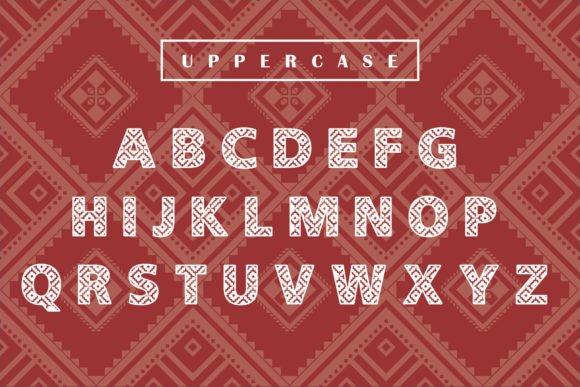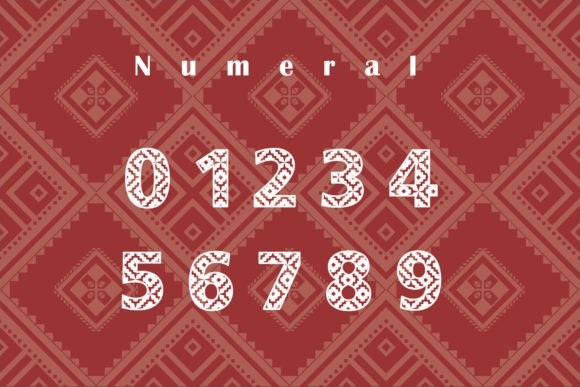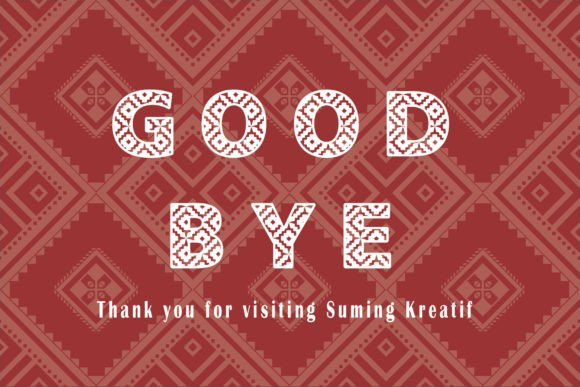
Introducing Fabric Font: Elevate Your Designs with a Unique and Authentic Touch
In the world of typography, a font can make or break a design project. When it comes to creating visually stunning headlines, titles, and short bursts of text, the right font is essential. This is where Fabric Font comes in – an attractive display font designed to add a touch of authenticity to your designs. With its bold lines and unique character shapes, Fabric Font is perfect for designers and crafters looking to make their message stand out.
What is Fabric Font?
Fabric Font is a display font that is specifically designed for use in headlines, titles, and other short bursts of text. Its bold lines and unique character shapes give it a distinctive look that is sure to grab attention. Whether you’re working on an advertising campaign, branding project, or print design, Fabric Font is the perfect choice.
Key Features of Fabric Font
- Bold Lines: Fabric Font features bold lines that give it a sturdy and confident look. Perfect for making a statement, this font is sure to grab attention.
- Unique Character Shapes: The unique character shapes in Fabric Font add an authentic touch to any design project. From the elegant curves to the sharp edges, each character is carefully crafted to create a visually stunning effect.
- Versatility: Fabric Font is versatile and can be used in a variety of design projects, from advertising and branding to print design and more.
Fabric Font is perfect for designers and crafters who want to add a unique touch to their designs. Whether you’re working on a logo, brochure, or business card, this font is sure to make your message stand out. With its bold lines and unique character shapes, Fabric Font is ideal for:
- Advertising: Use Fabric Font to create eye-catching headlines and titles that grab attention.
- Branding: Add a touch of authenticity to your brand with Fabric Font. Perfect for logos, packaging, and more.
- Print Design: Use Fabric Font to create visually stunning brochures, business cards, and other print materials.
Tips for Using Fabric Font
To get the most out of Fabric Font, here are a few tips to keep in mind:
- Use it sparingly: Fabric Font is a display font and is best used sparingly. Use it for headlines and titles, and pair it with a simpler font for body text.
- Experiment with colors: Fabric Font looks great in a variety of colors. Experiment with different colors to find the one that works best for your design.
- Pair it with other fonts: Fabric Font pairs well with a variety of other fonts. Experiment with different pairings to find the one that works best for your design.
In conclusion, Fabric Font is a unique and attractive display font that is perfect for designers and crafters looking to add a touch of authenticity to their designs. With its bold lines and unique character shapes, Fabric Font is sure to make your message stand out. Whether you’re working on an advertising campaign, branding project, or print design, Fabric Font is the perfect choice. So why wait? Download Fabric Font today and start elevating your designs to the next level.